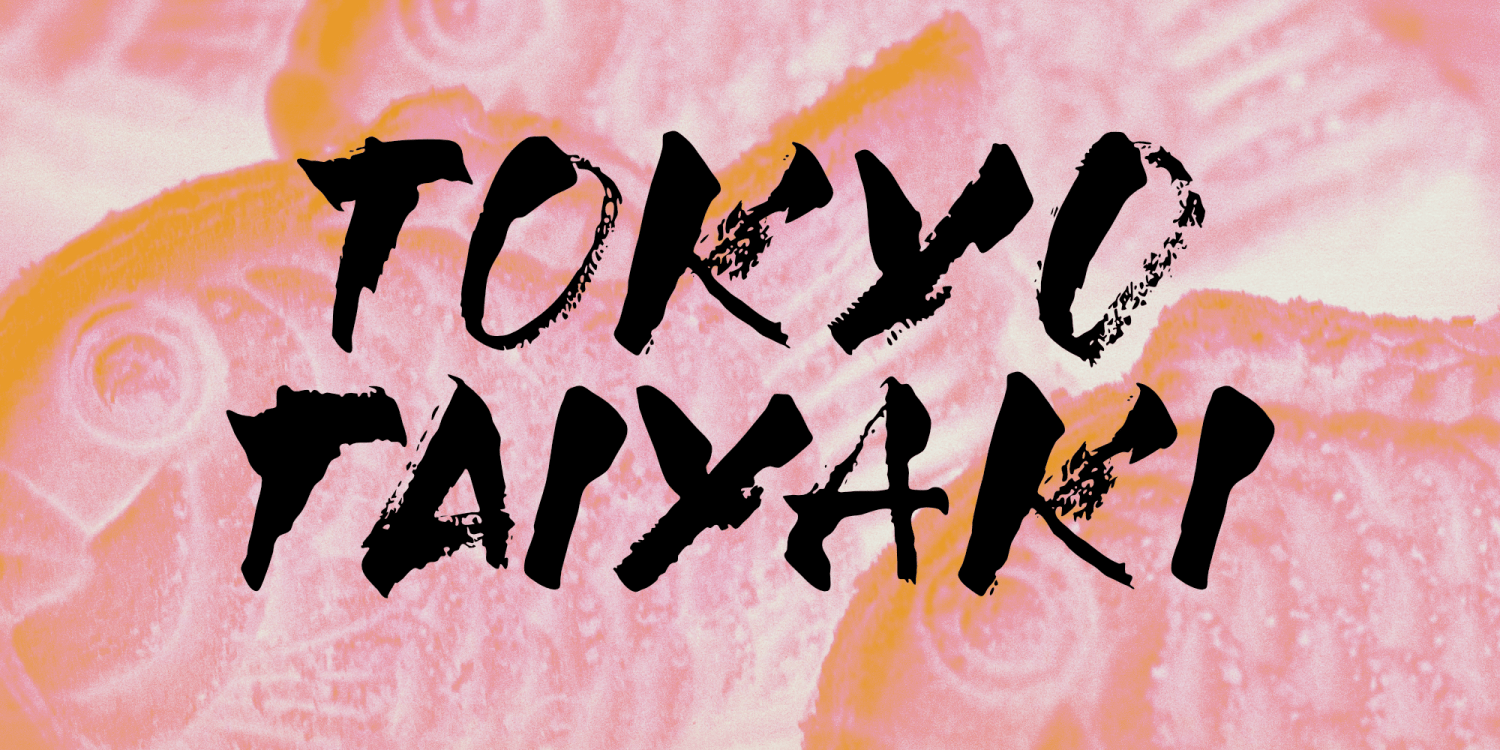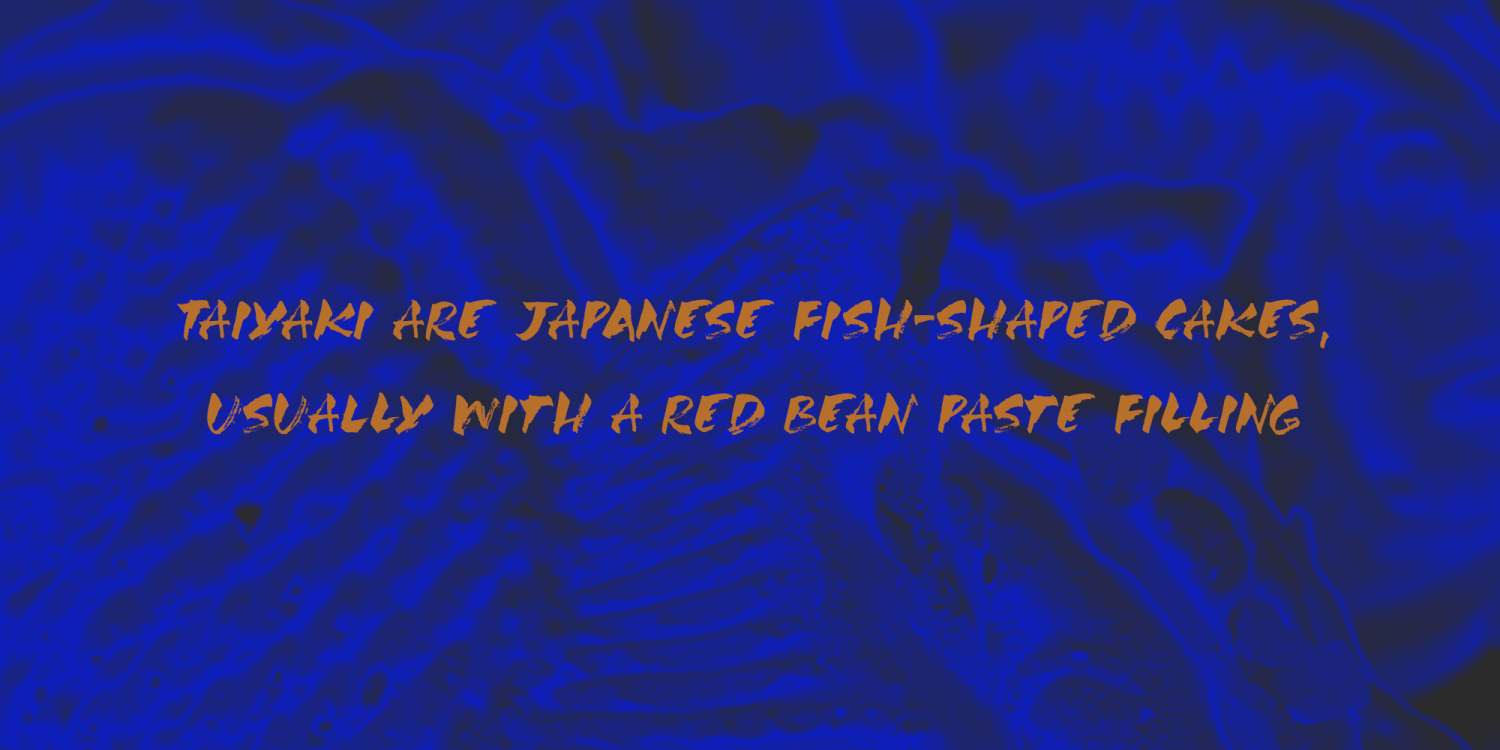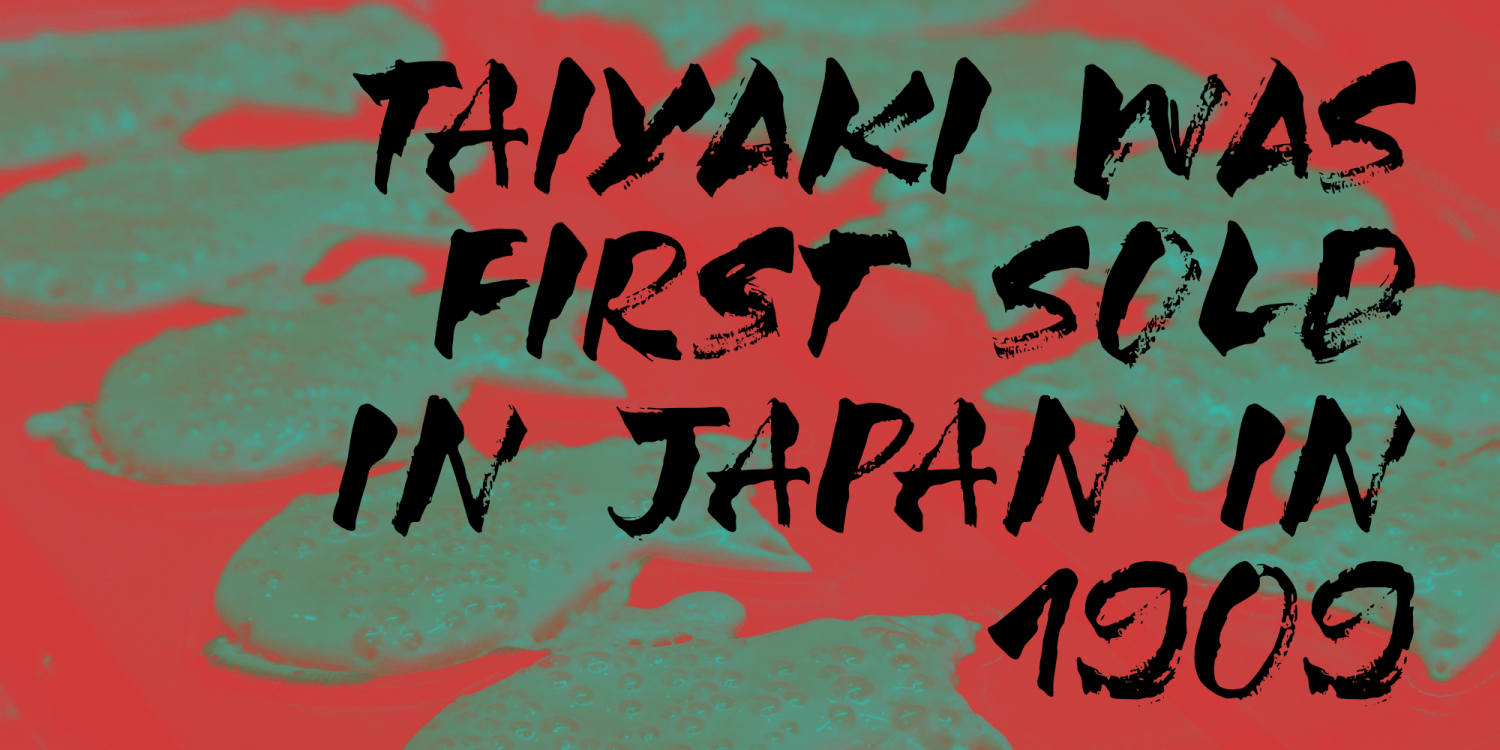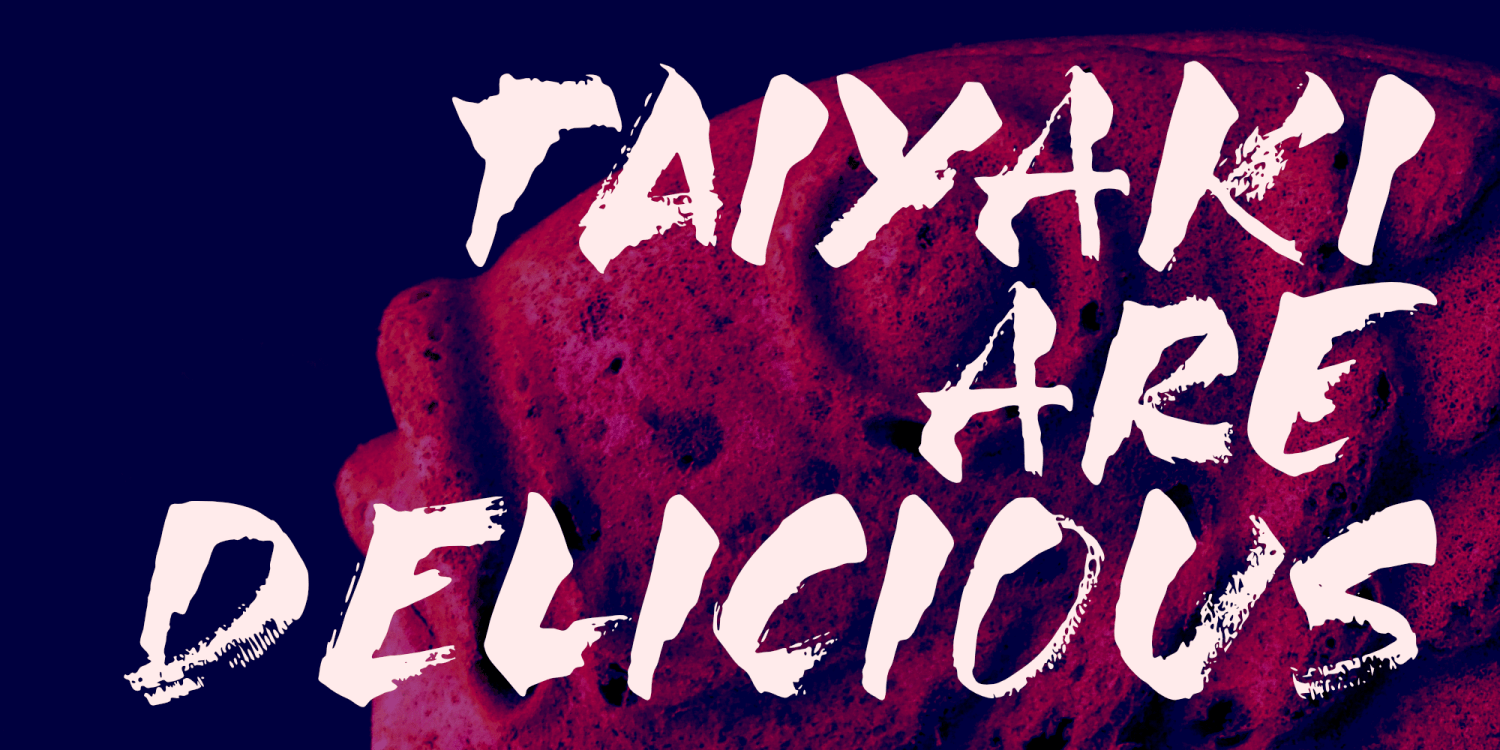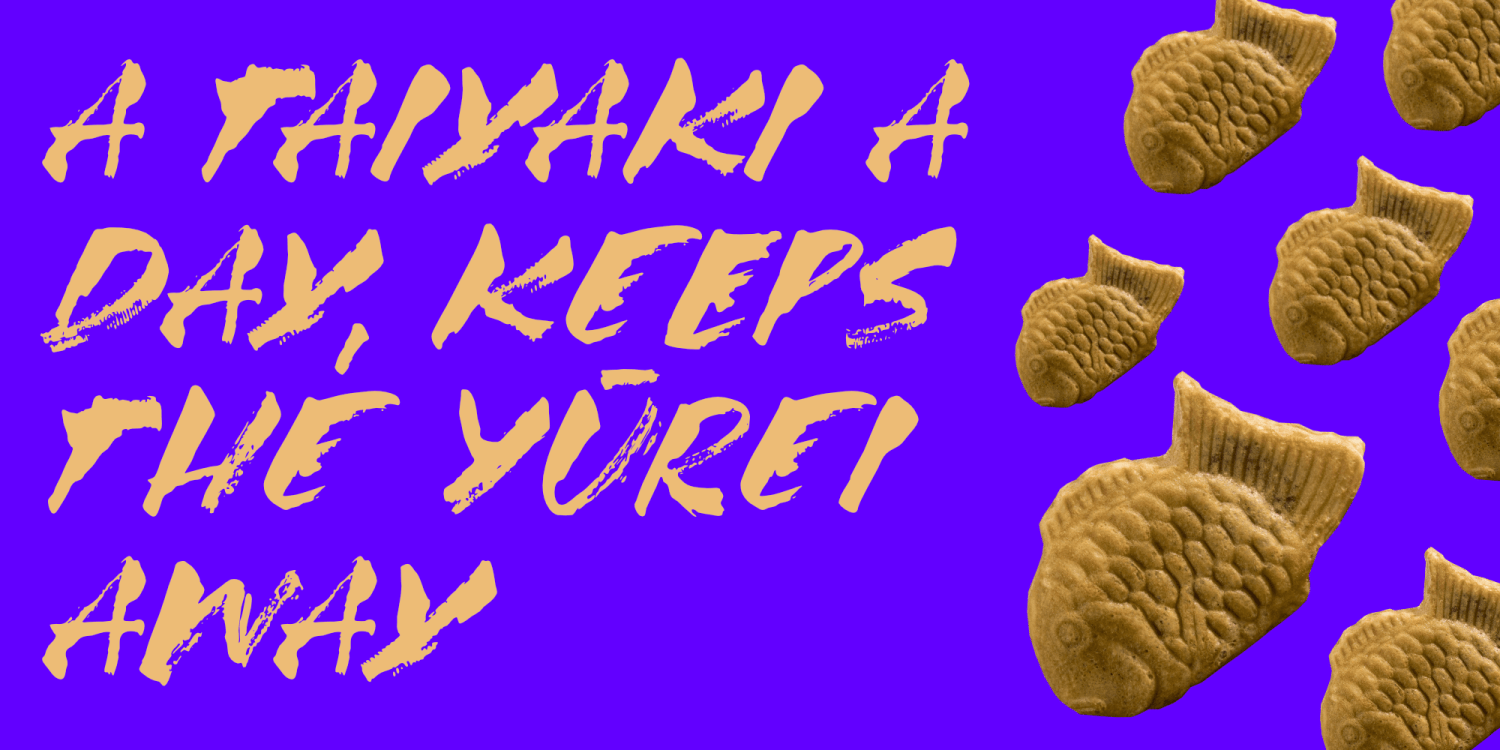
Tokyo Taiyaki
In May of this year, I went to Japan with my (then 11 year old) son Sam. It was his dream to visit Japan, probably because of my tall tales, stemming from the time I was a tour guide! Sam really wanted to try all kinds of Japanese delicacies and one day, when walking around Tokyo, we came across a little stall selling Taiyaki. Taiyaki are fish-shaped waffle/cakes with a red bean or sweet potato filling. They are really delicious!
This nice ‘oriental looking’ font was made with a broken popsicle stick and Chinese ink. You are now wondering why I always use Chinese ink and not Japanese ink. Well, I have a stash of the Chinese stuff and it’ll last me a lifetime!